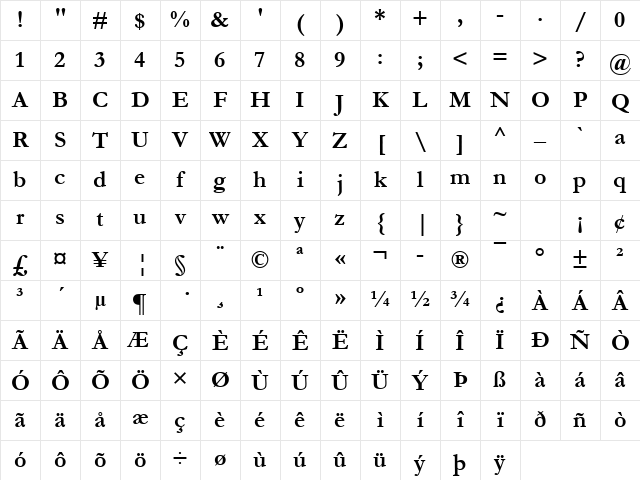
Garamond Bold Free Font
Garamond Bold
Foundry: Monotype Typography, Inc.
Designer: Claude Garamond
Design Context for Garamond
Garamond is a composed and adaptable typeface that performs quietly and consistently across a wide range of design contexts. Its bold stroke weight gives it real presence on the page.